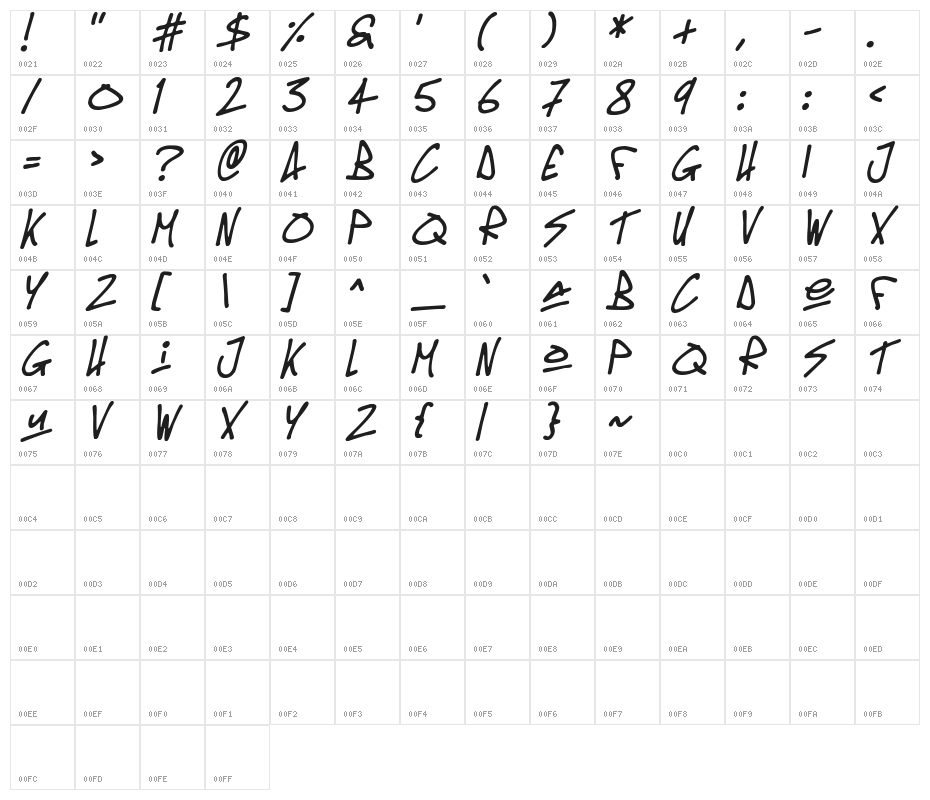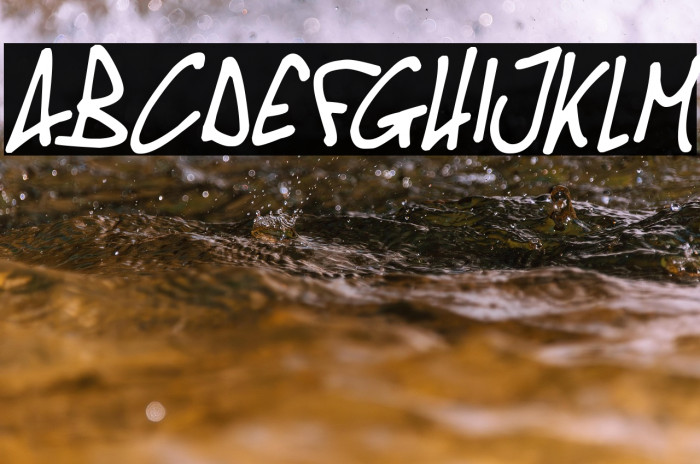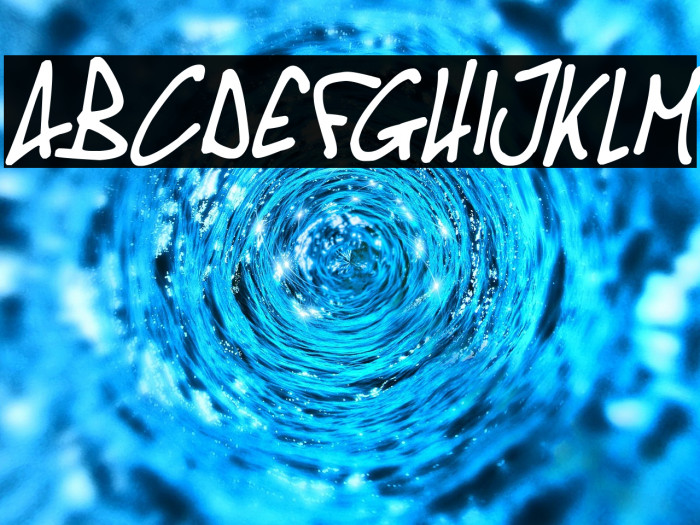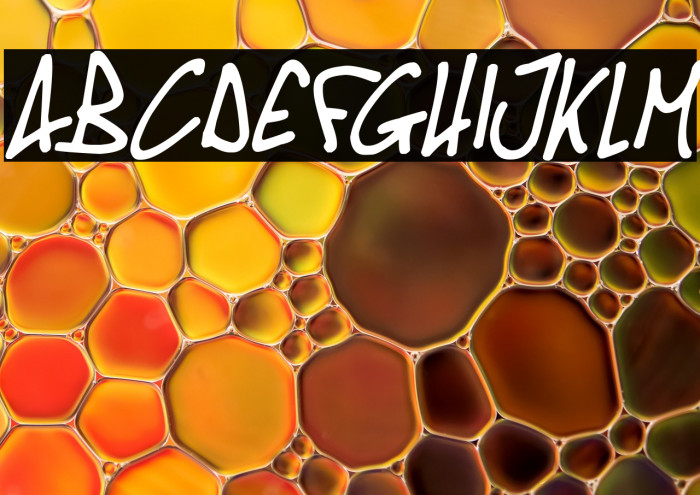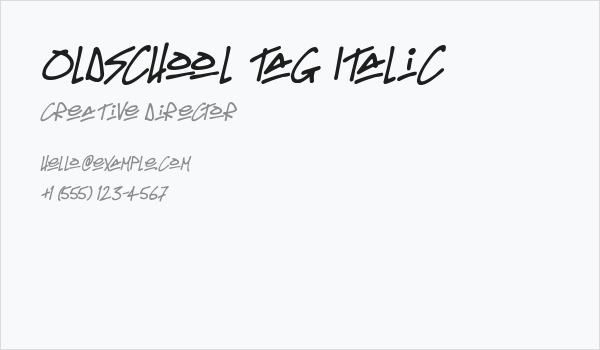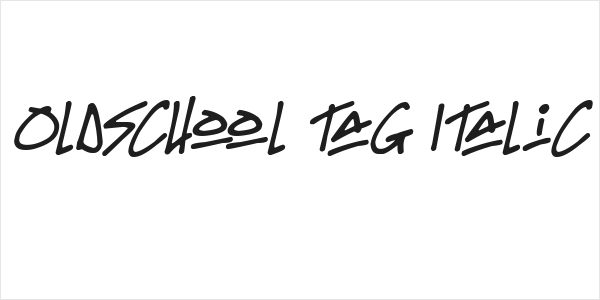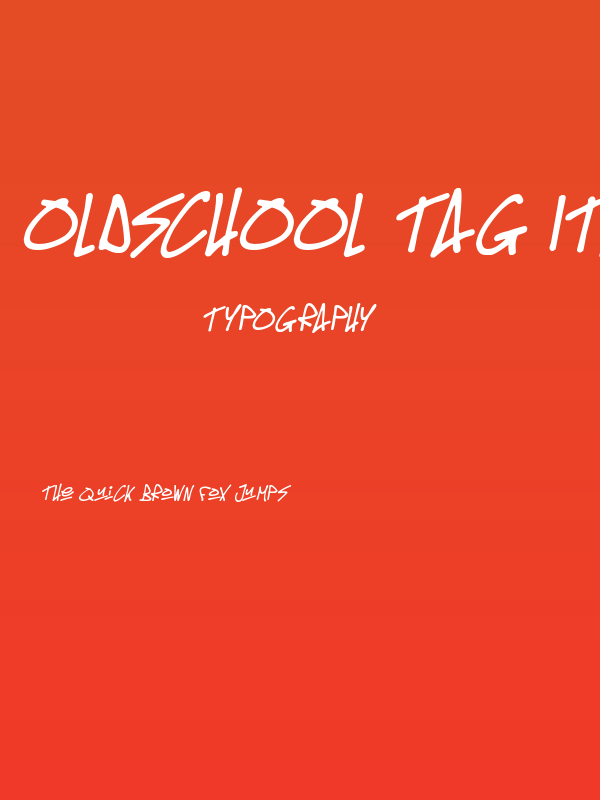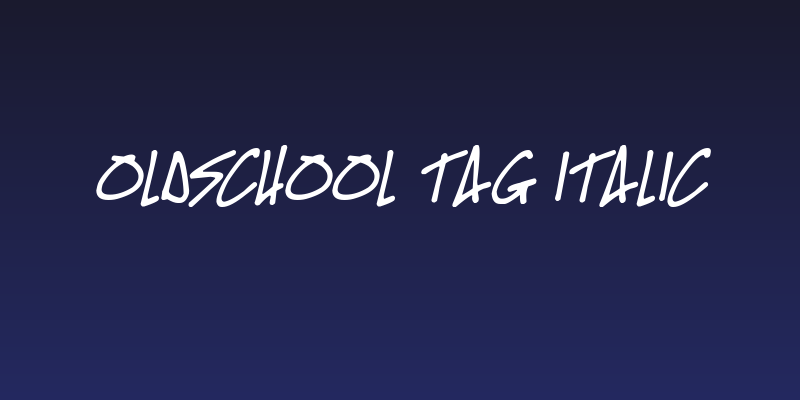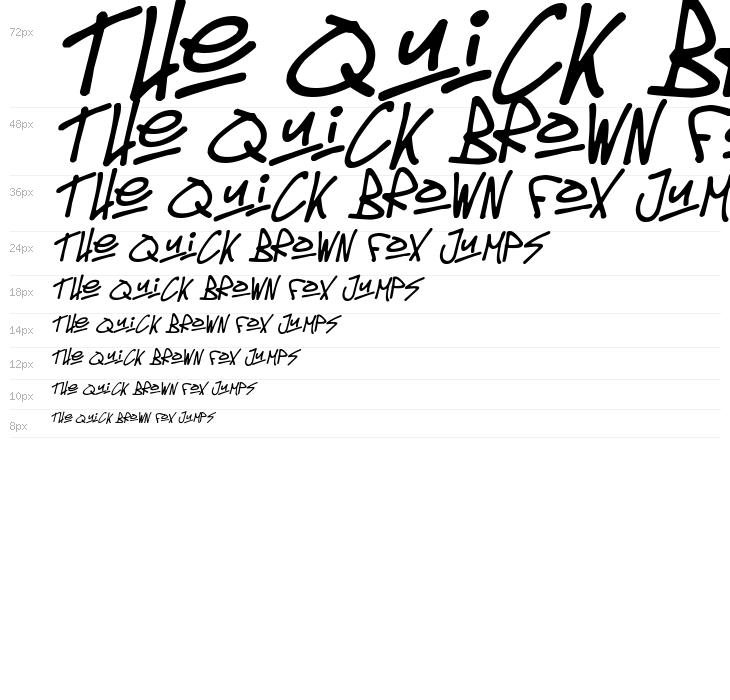
Oldschool Tag Italic Font
Oldschool Tag Italic Description
This font exudes a dynamic and energetic style, reminiscent of graffiti or street art. The characters are bold and slanted, giving an italicized appearance that enhances its lively and informal nature. The strokes are thick and consistent, with a playful and spontaneous feel. Each letter is uniquely crafted, adding to the overall expressive and artistic vibe. The numbers and special characters maintain the same energetic style, making the font versatile for creative projects.
Overall StyleModern, Urban, Artistic
Use CaseLogos, Posters, Album Covers
Proposed ProjectsIdeal for street art designs, urban-themed posters, music album covers, and any project requiring a bold, expressive touch.